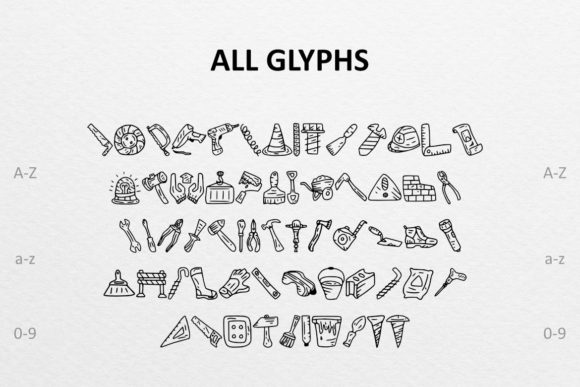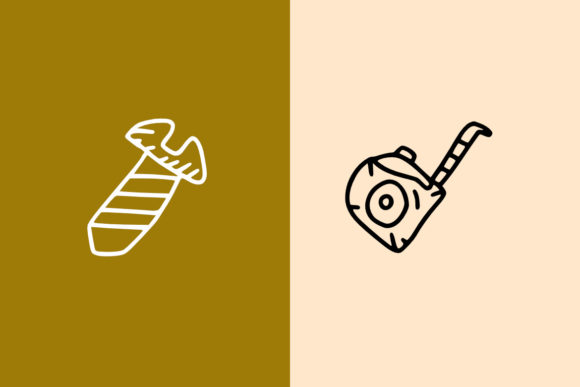
About Tools Doodle Font
Tools Doodle is a versatile and practical dingbats font that adds a touch of creativity to your projects, logos, ornaments, and more, especially those related to tools and equipment. With its collection of 62 symbols, this font provides a wide range of tool-related icons and illustrations that can enhance your designs.
Whether you’re working on a construction-themed campaign, creating a logo for a hardware store, designing a DIY project guide, or simply incorporating tool elements into your artwork, Tools Doodle has you covered.
The symbols in Tools Doodle encompass a diverse array of tools, including hammers, screwdrivers, wrenches, saws, drills, measuring tools, and many more. Each symbol is meticulously designed to capture the essence of the tool while maintaining a playful and eye-catching style.
Tools Doodle is designed to be adaptable and suitable for various design formats and mediums. Whether you’re creating digital graphics, designing printed materials, or even crafting merchandise, Tools Doodle provides symbols that seamlessly integrate into your designs.
The symbols in Tools Doodle are carefully crafted to ensure clarity and visual appeal, even at different sizes or resolutions. Whether you’re using them for small icons or large-scale prints, the symbols will retain their detail and effectiveness, enhancing the overall impact of your tool-themed designs.
By incorporating Tools Doodle into your projects, you can instantly convey the essence of tools and equipment. The symbols offer a visual language that communicates craftsmanship, functionality, and precision, creating a sense of professionalism and expertise in your designs.
So, unleash your creativity and explore the endless possibilities that Tools Doodle offers. Let the symbols inspire your designs and bring a unique visual flair to your tool-related creations. With Tools Doodle, you can create designs that captivate your audience, communicate effectively, and make a lasting impression in the realm of tools and equipment.